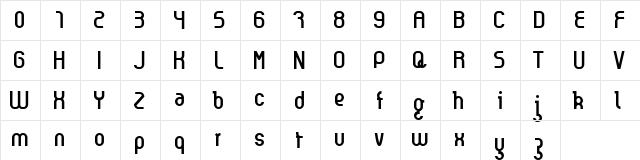
Kyma Kyma
| Foundry | BenoԴ Sjڨolm |
| Designer | BenoԴ Sjڨolm |
Design Context for Kyma Typeface
Kyma takes a measured approach to typography — its balanced proportions and neutral character make it a reliable workhorse for both digital and print work.